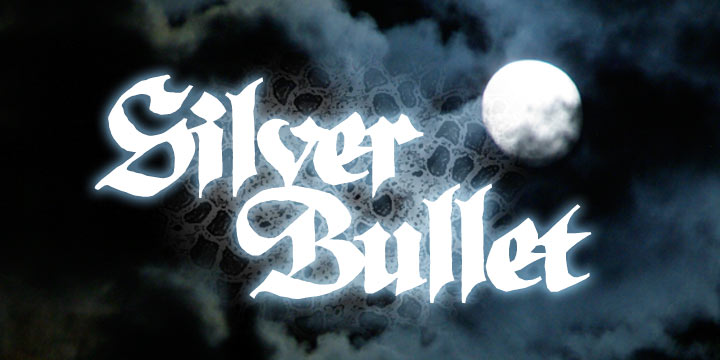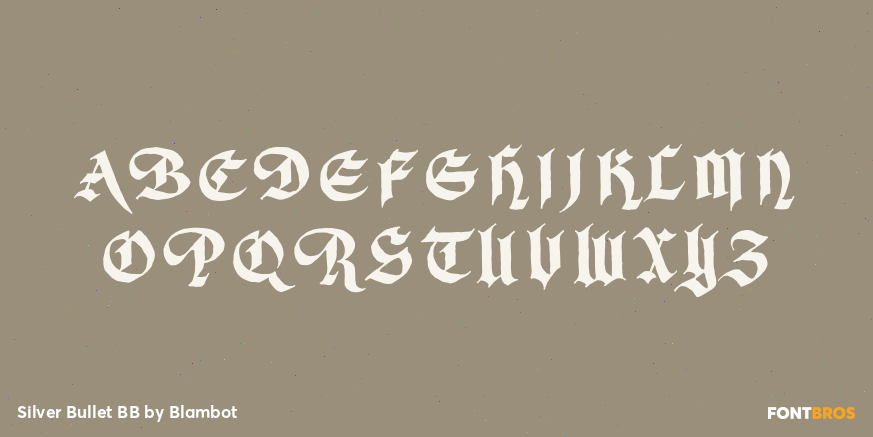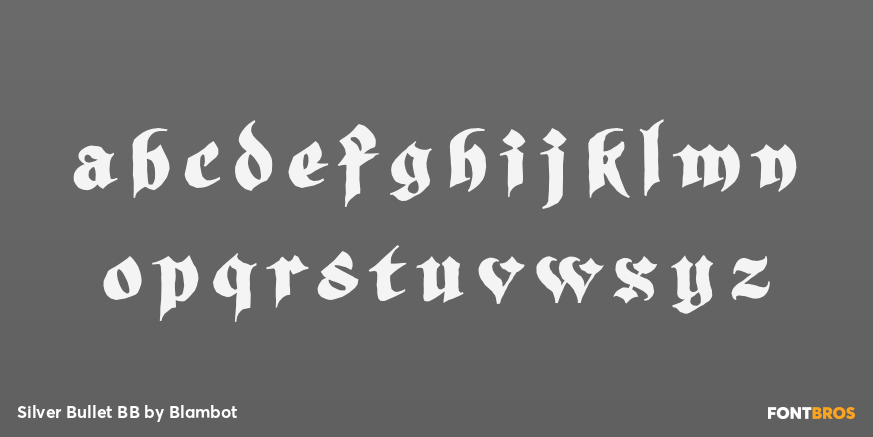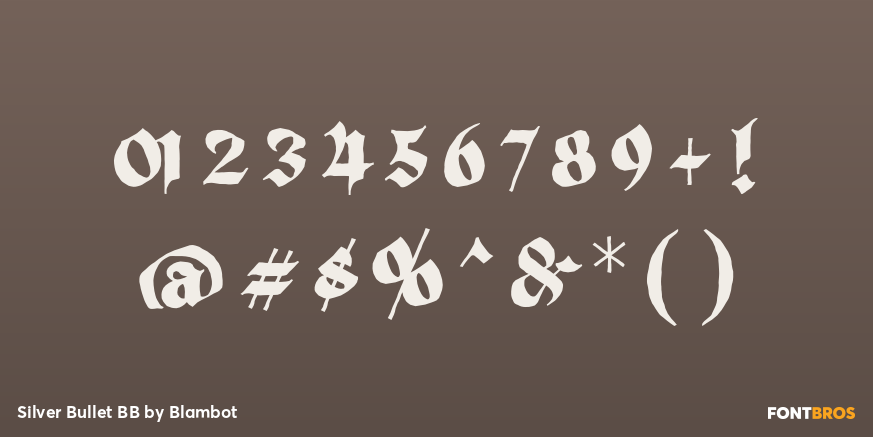
Silver Bullet BB
Font Family by Blambot
SLVER BULLET BB is a howling good gothic/blackletter typeface with an infectious bite! Comes with Regular and Italic and has a wolf-pack of European characters!